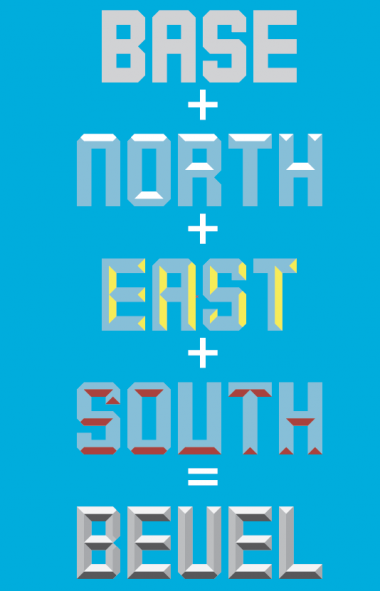
• The basis for the Bevel font. Give this a medium-color. Use together with Bevel North, Bevel East and/or Bevel South to give depth to font. Superimpose these fonts over each other. Please, refer to website to download the set of 4 fonts. http://www.ideogram.nl/content/bevelled-fonts Here, I've done some adjustments to the spacing that were not possible in Font-struct.
Example of all the members of the Bevel Font family: Base + North + East + South.